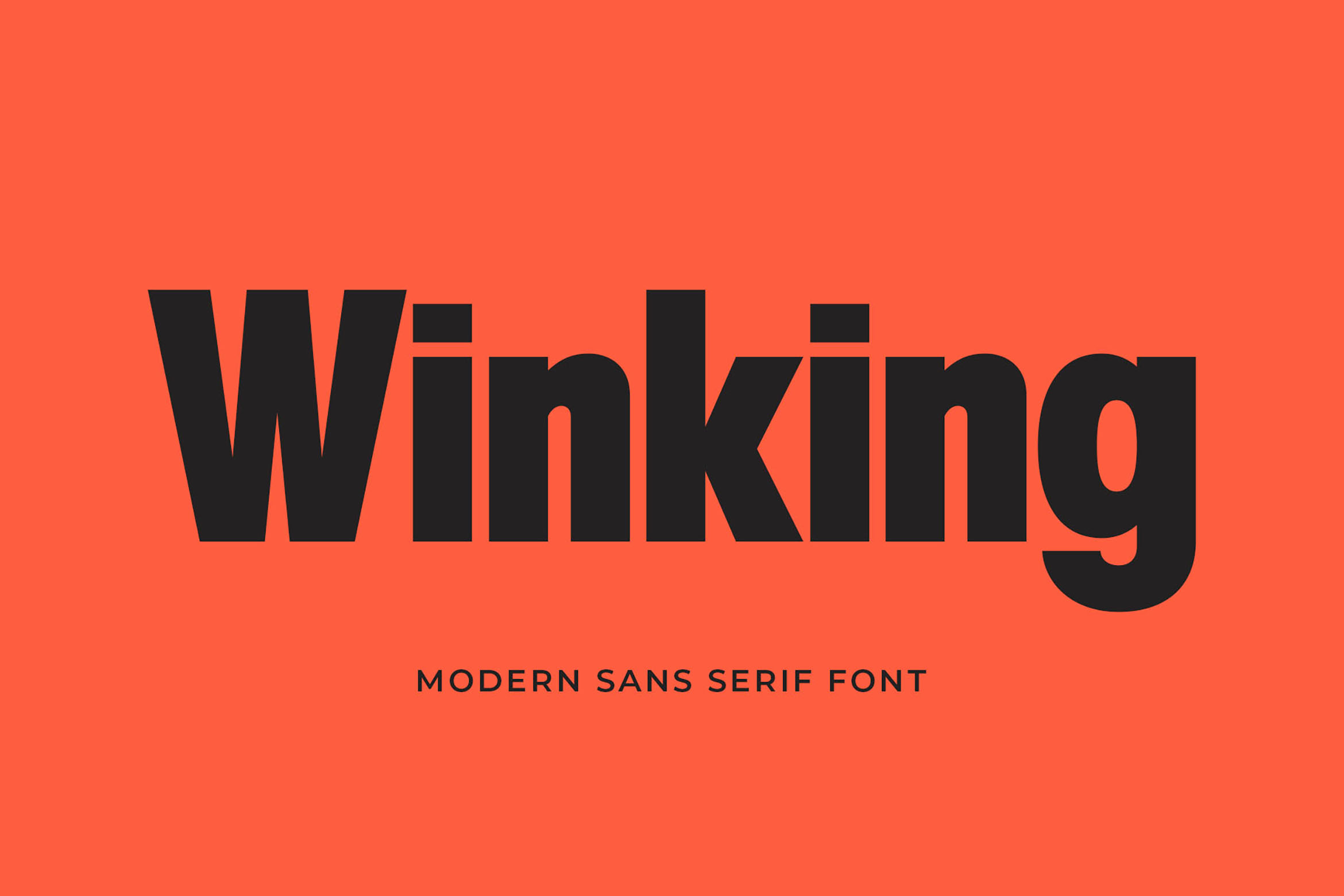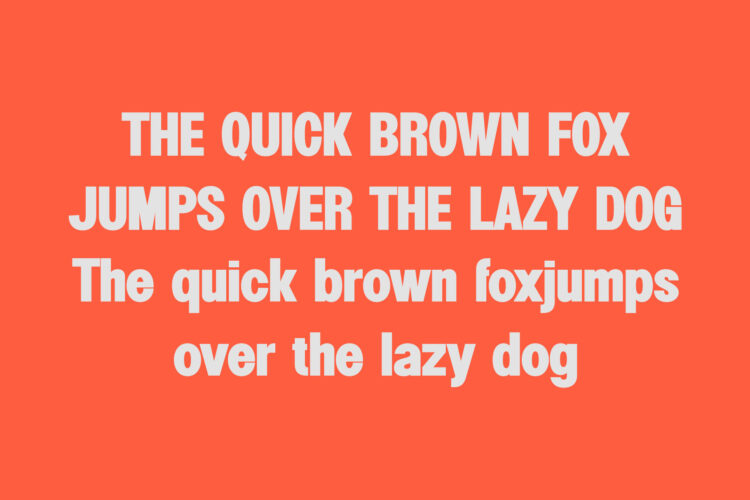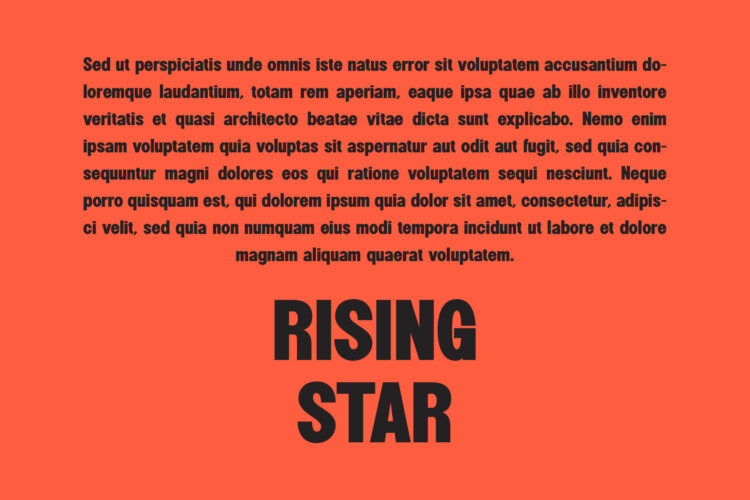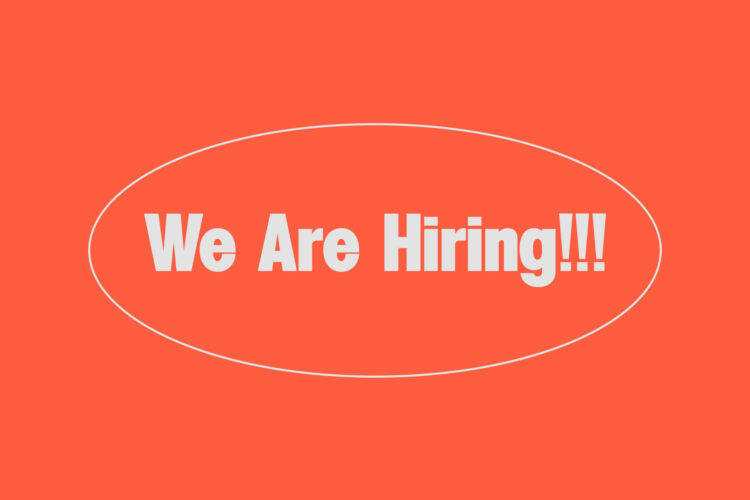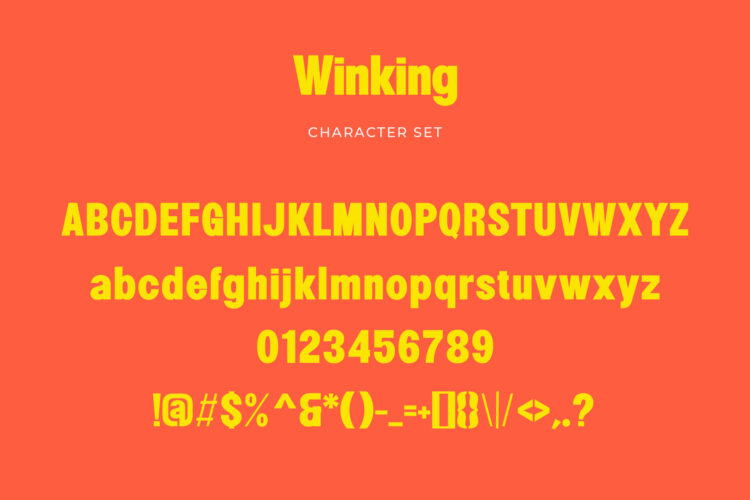
Introducing our new Winking, modern sans serif font with elegant style this is perfect for branding, logos, invitation, magazines, product packaging and more.
Winking – Modern Sans Serif